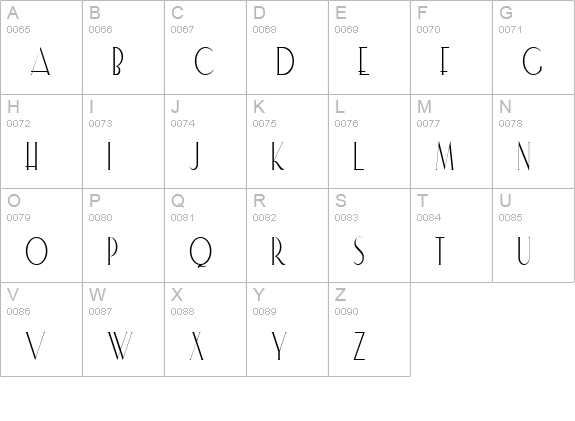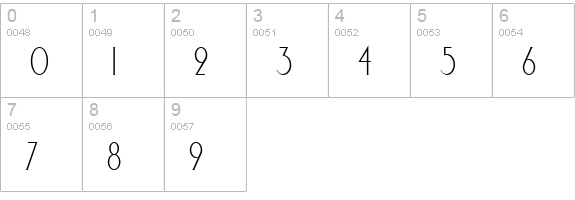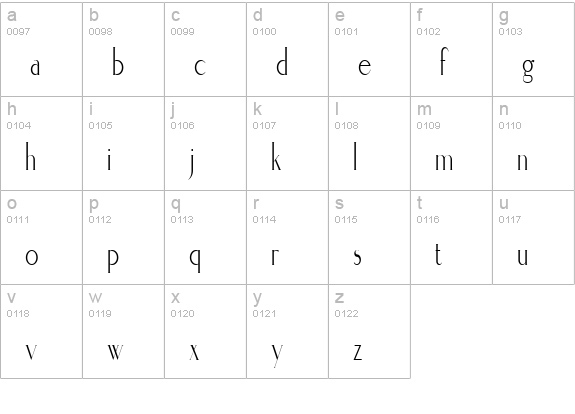
ElisiaCondensed Font Details
Introducing ElisiaCondensed font, a modern and sleek typeface perfect for adding a touch of sophistication to your design projects. With its clean lines and elegant curves, ElisiaCondensed is sure to make a statement. This versatile font is ideal for a wide range of applications, from branding to editorial design. What's even better is that ElisiaCondensed is available for free download at FontsMarket.com. That's right, you can get your hands on this beautiful font without spending a dime. Don't miss out on the opportunity to enhance your designs with this stylish and contemporary typeface. Download ElisiaCondensed today and elevate your projects to the next level.